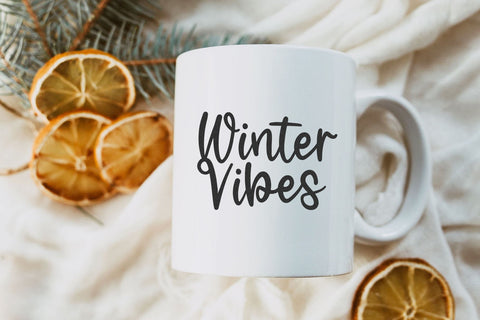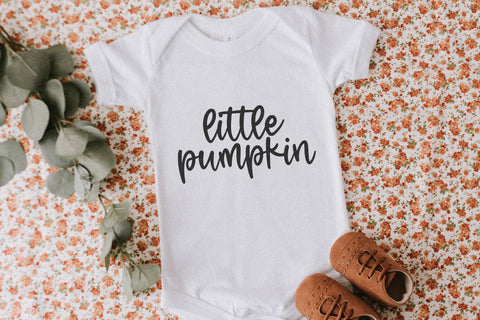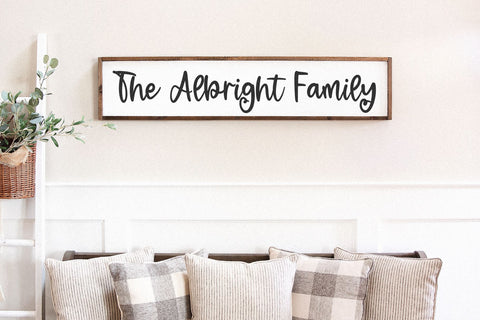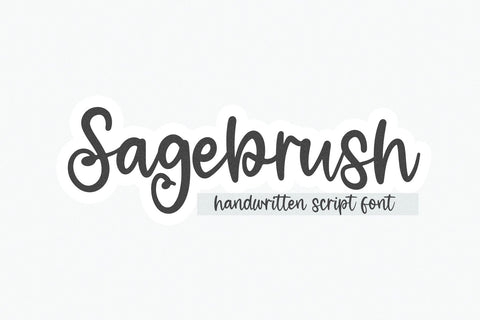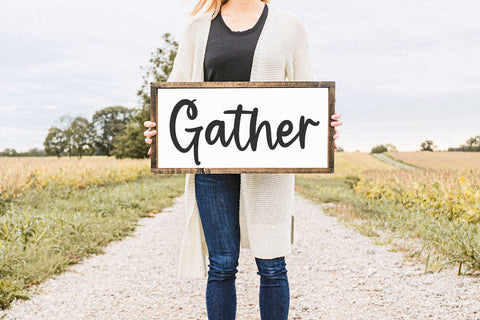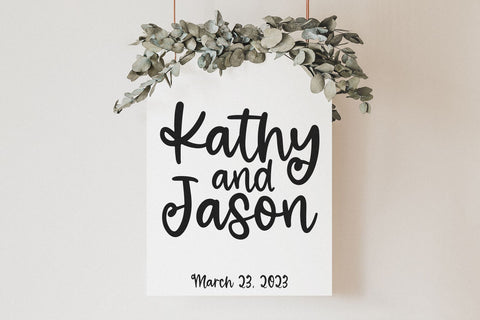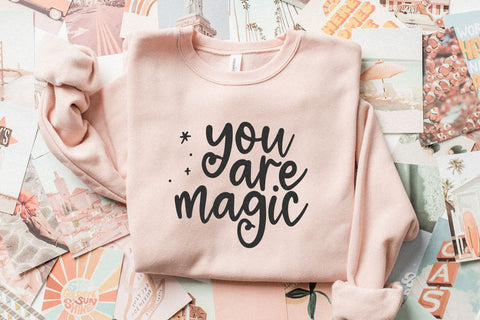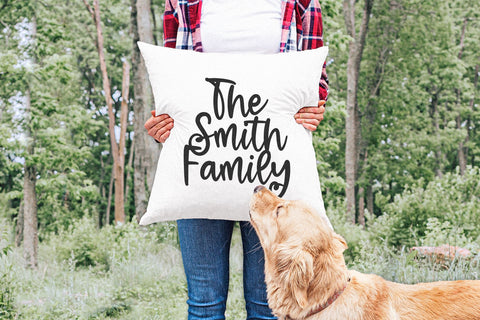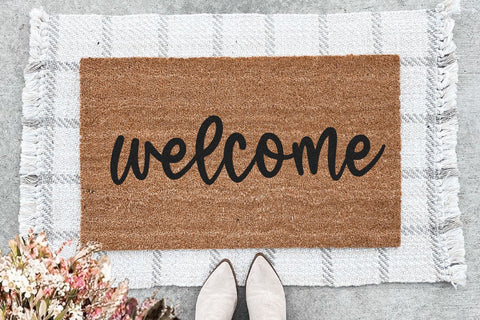
Sagebrush - Handwritten Script Font
Sagebrush is a modern handwritten script font.
This font is perfect for wedding decor, signs, doormats, farmhouse designs, procreate, cricut projects, branding, blogs, logos, invitations and more!